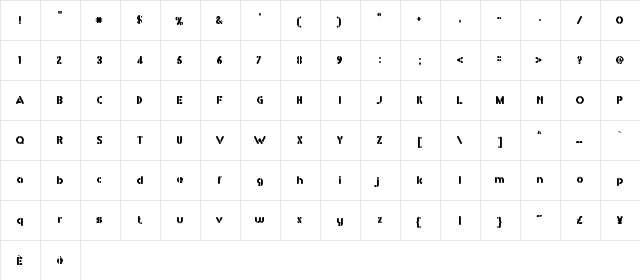
RM Playtime stencil Regular
RM Playtime stencil borrows the utilitarian aesthetic of stencil lettering, with its characteristic cutaways and no-frills construction lending an industrial edge.
A strong choice for packaging that needs edge, warehouse aesthetics, and rough-and-ready visual identities.
Pro Tip: Use RM Playtime stencil at large sizes on packaging, posters, or apparel where the stencil cutaways read clearly. Avoid small sizes where those gaps become visual noise.